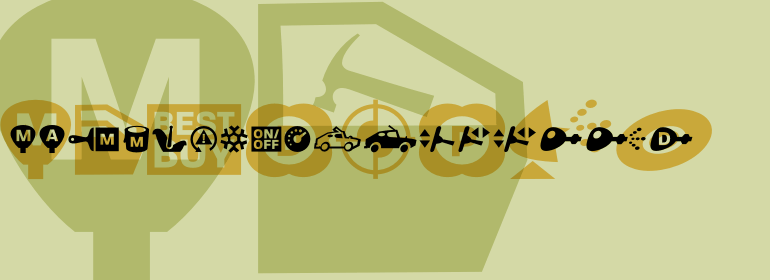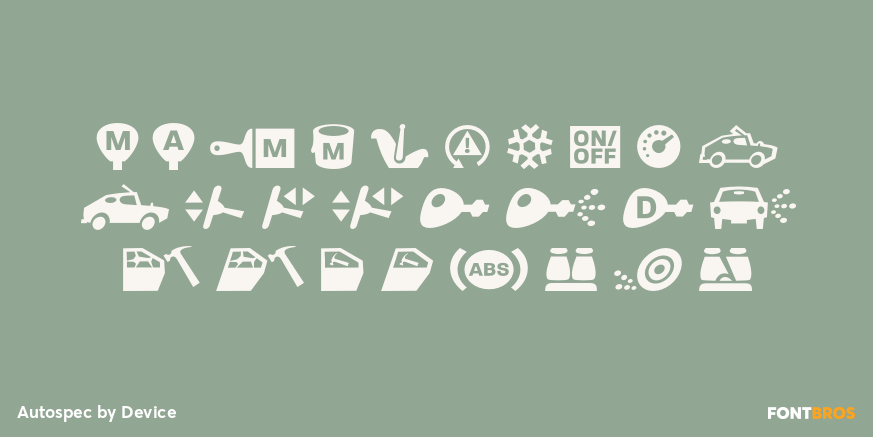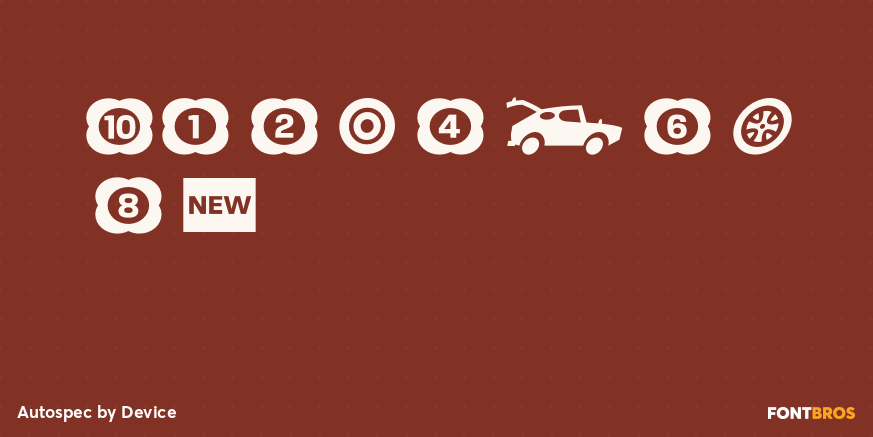
Autospec
Font Family by Device
Designed as a companion to Autofont, this dingbat set was originally developed for What Car? magazine, the UK's leading automotive consumer title.
Use in charts and reviews to indicate metallic paint, shatterproof glass, number of airbags, manual or auto sunroof, etc.